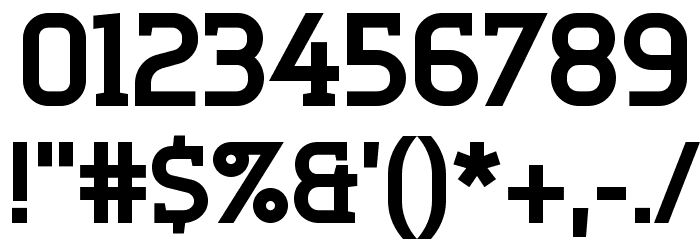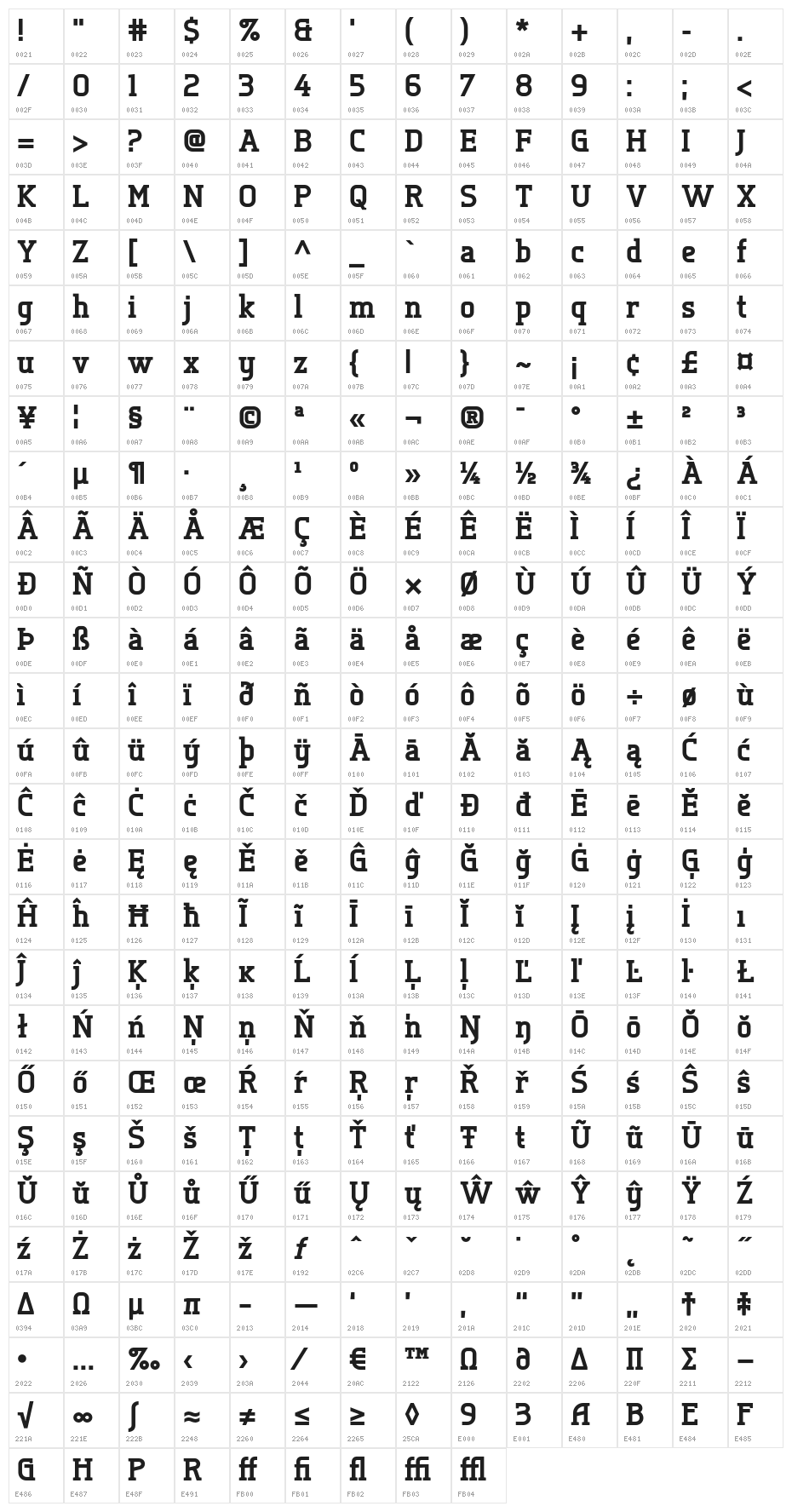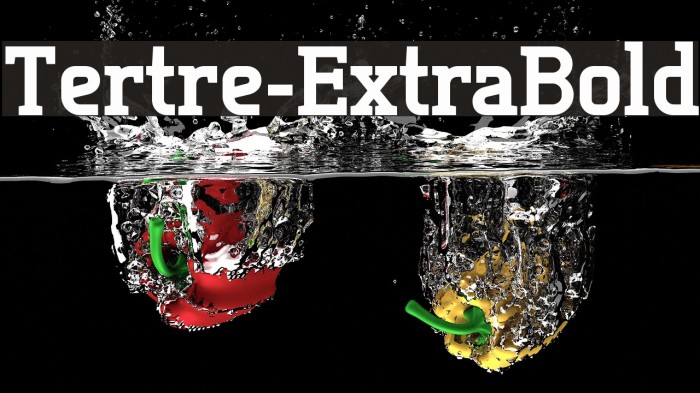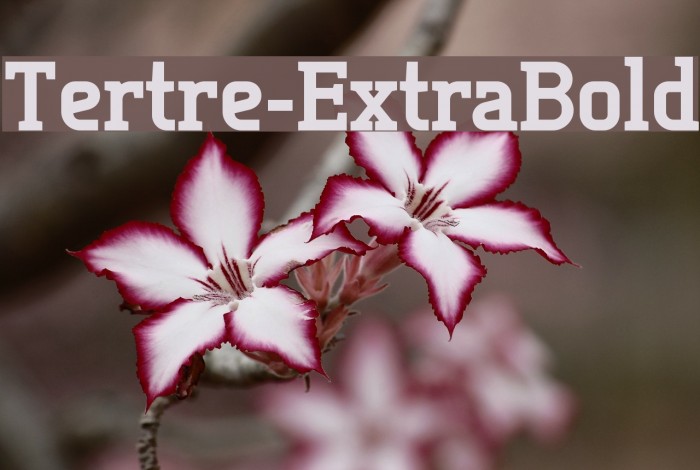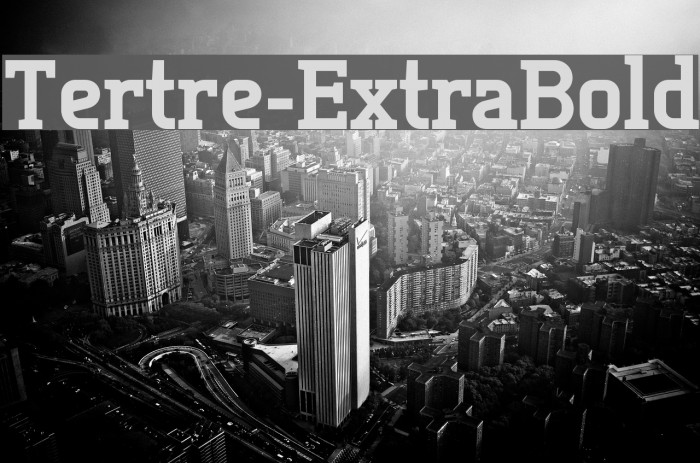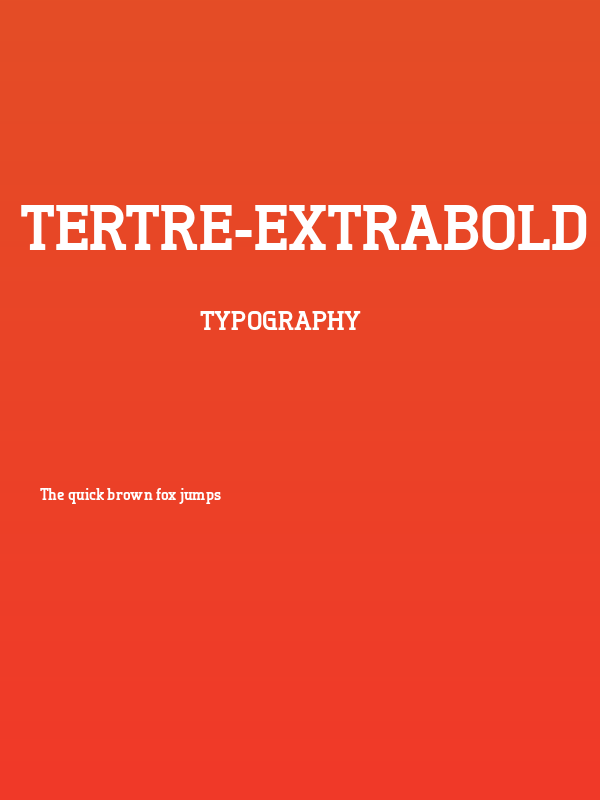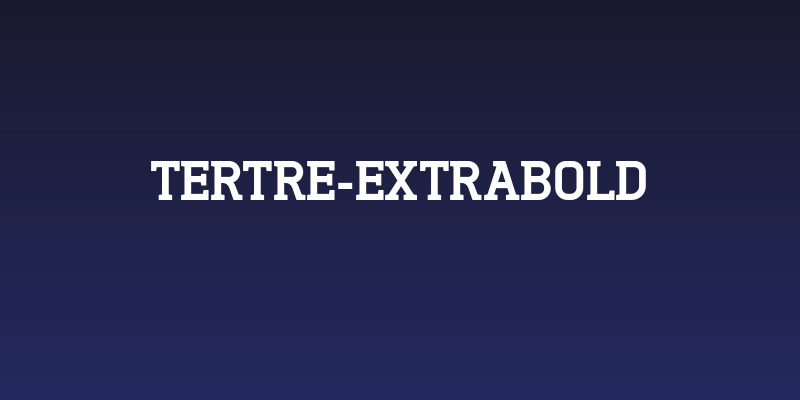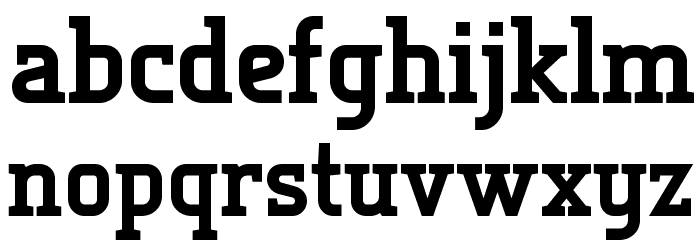
Tertre-ExtraBold Font
Tertre-ExtraBold Description
This font features a robust and bold appearance, characterized by thick strokes and a strong presence. The uppercase letters exhibit a commanding structure with consistent stroke widths, while the lowercase letters maintain a harmonious balance with slightly rounded edges. The numerals are clear and legible, designed to stand out with their boldness. Special characters are crafted with precision, ensuring readability and aesthetic appeal. The overall design is modern and impactful, making it suitable for attention-grabbing headlines and displays.